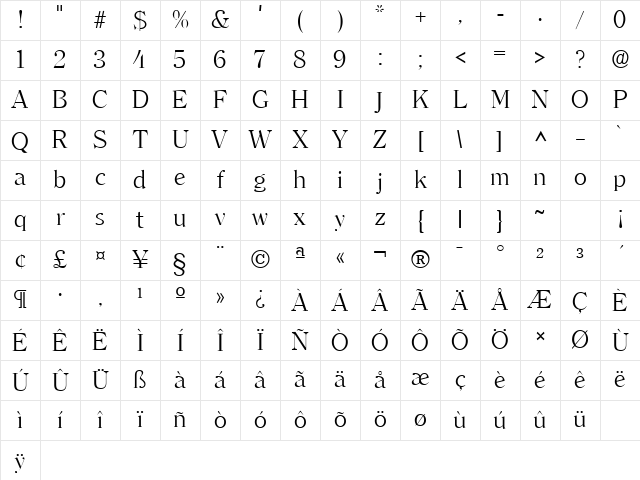
ClearfaceLH Regular
Design Context for ClearfaceLH
ClearfaceLH is a composed and adaptable typeface that performs quietly and consistently across a wide range of design contexts.